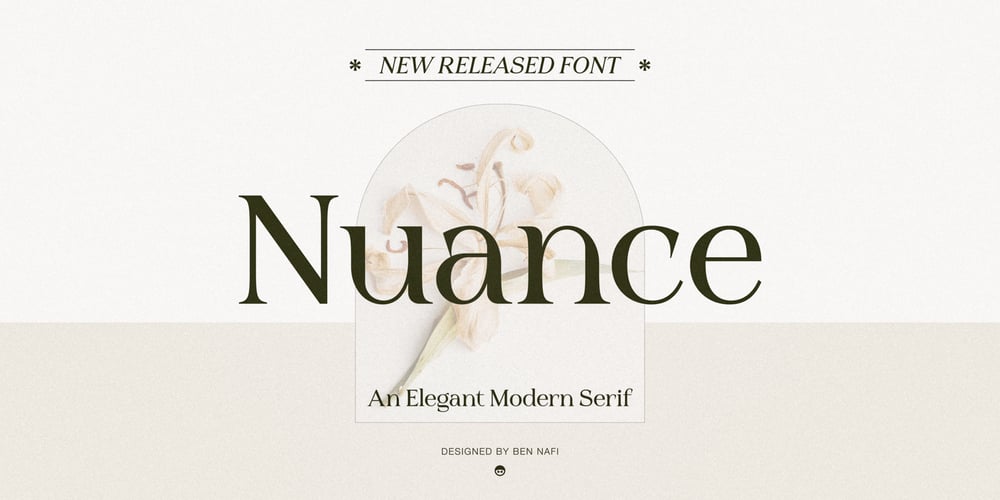
Nuance Font Family was designed by Ben Nafi and published by Xelo. Nuance contains 1 styles and family package options. Introducing Nuance Font: An Elegant Modern Serif TypefaceDiscover Nuance Font: Where Elegance Meets Modernity. This versatile serif offers complete glyphs, multilingual support, and a variable font option for unmatched creative freedom. Elevate luxury branding, editorial design, and more with its timeless charm. Perfect pairings and modern elegance make Nuance Font a must-have. Craft sophistication effortlessly. #NuanceFont